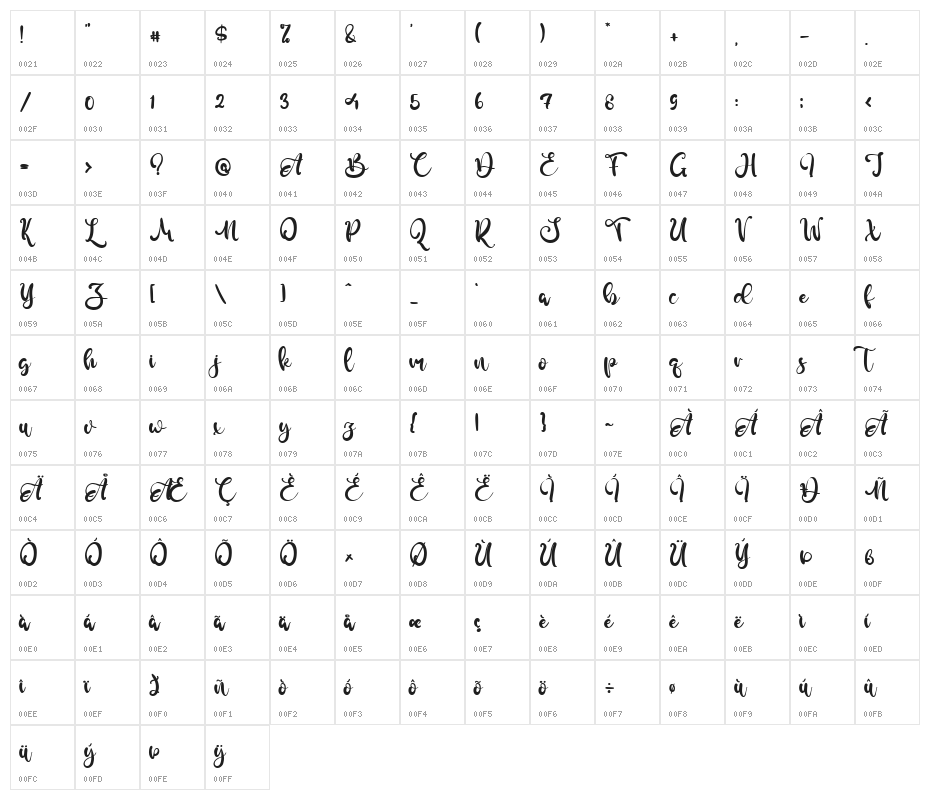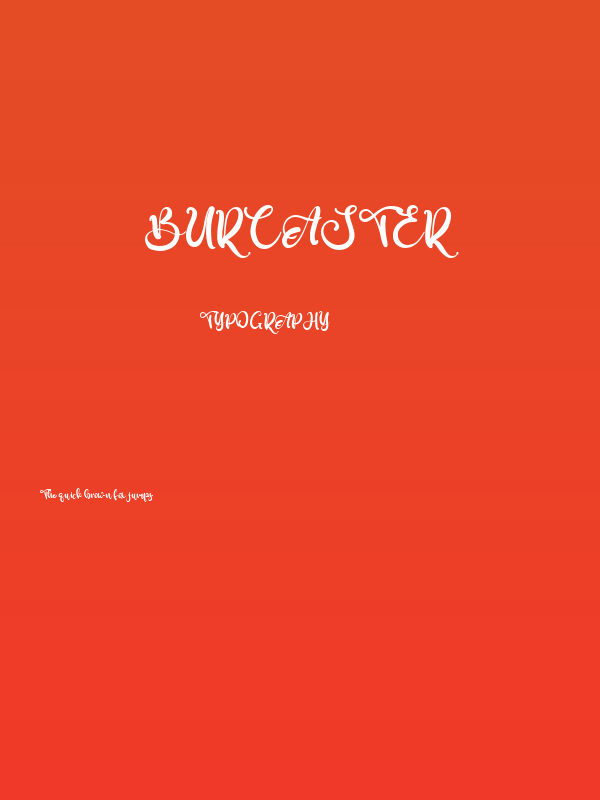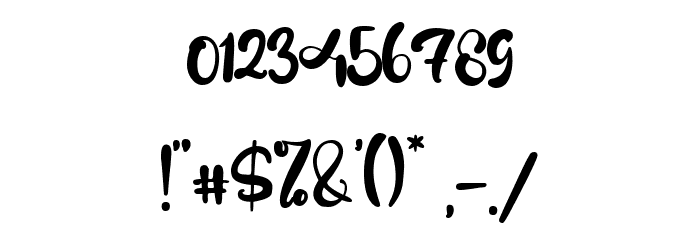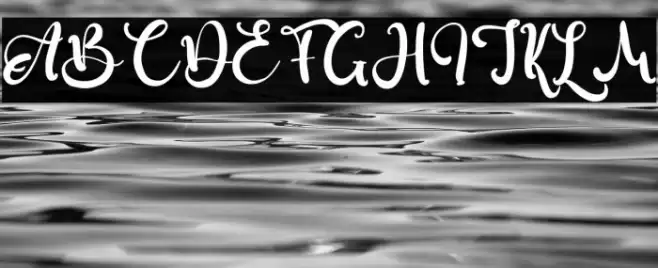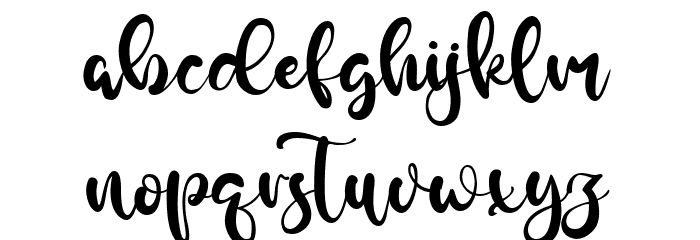
Burcaster Font
Burcaster Description
This font features a lively and expressive script style with a handwritten appearance. The characters are fluid and connected, showcasing elegant loops and curves that give it a dynamic and artistic flair. The uppercase letters are bold and prominent, while the lowercase letters maintain a consistent flow, enhancing readability. Numbers and special characters are crafted with the same attention to detail, ensuring a cohesive look across all elements. The font's playful yet sophisticated design makes it suitable for a variety of creative applications.